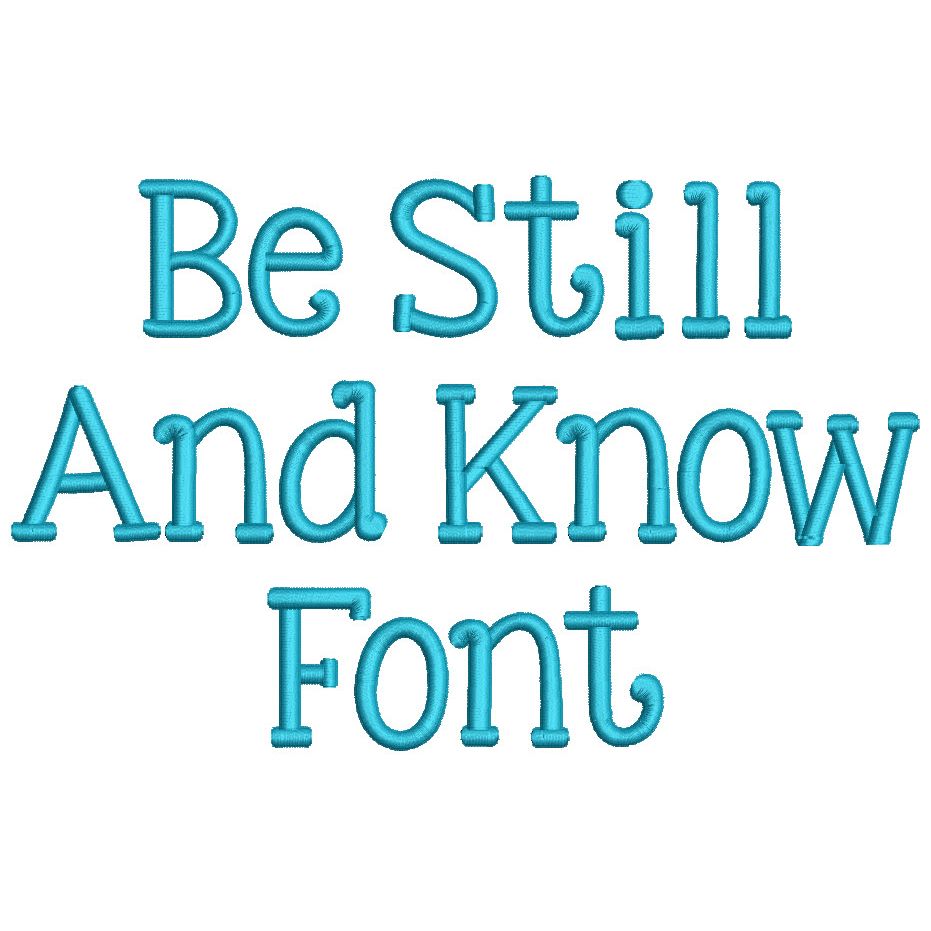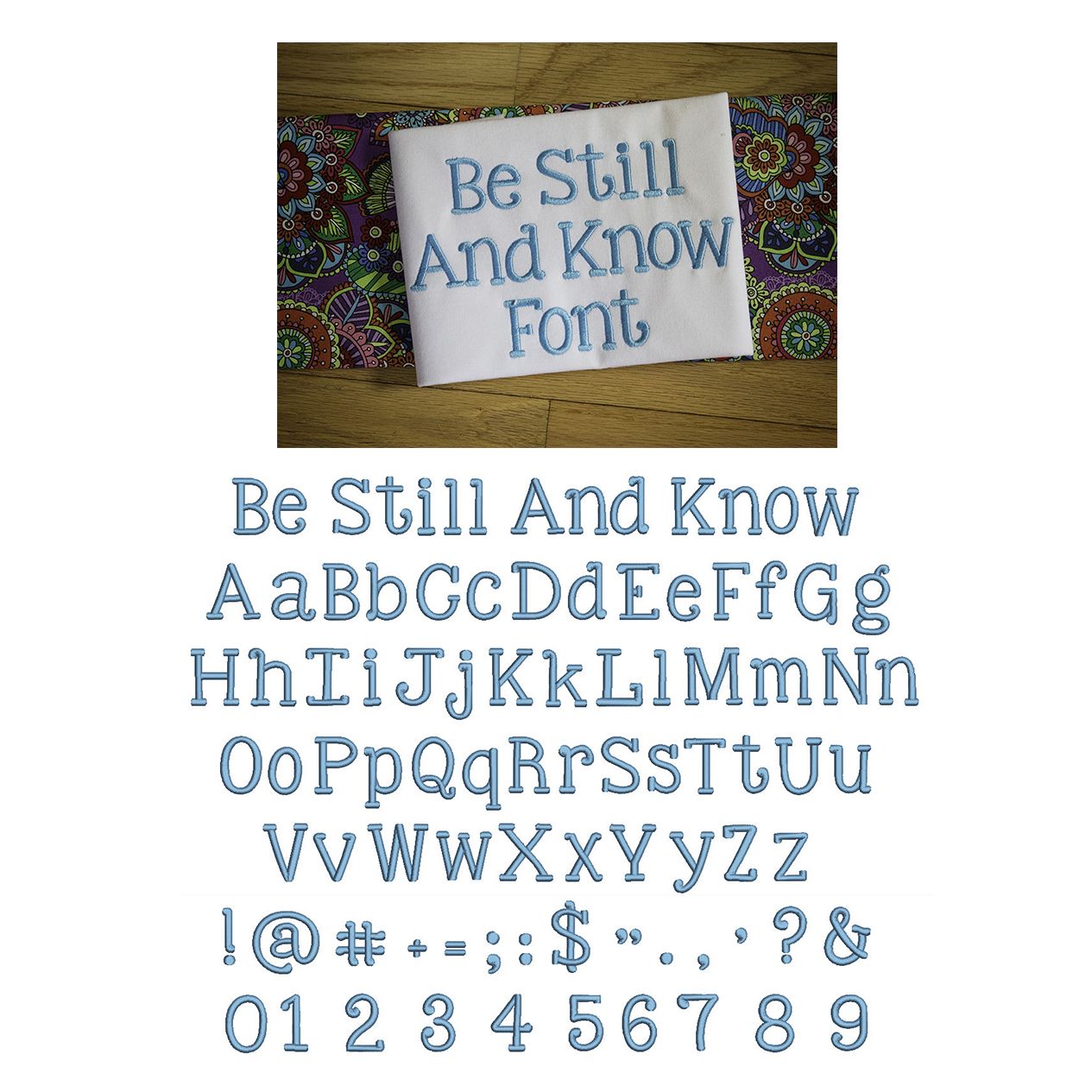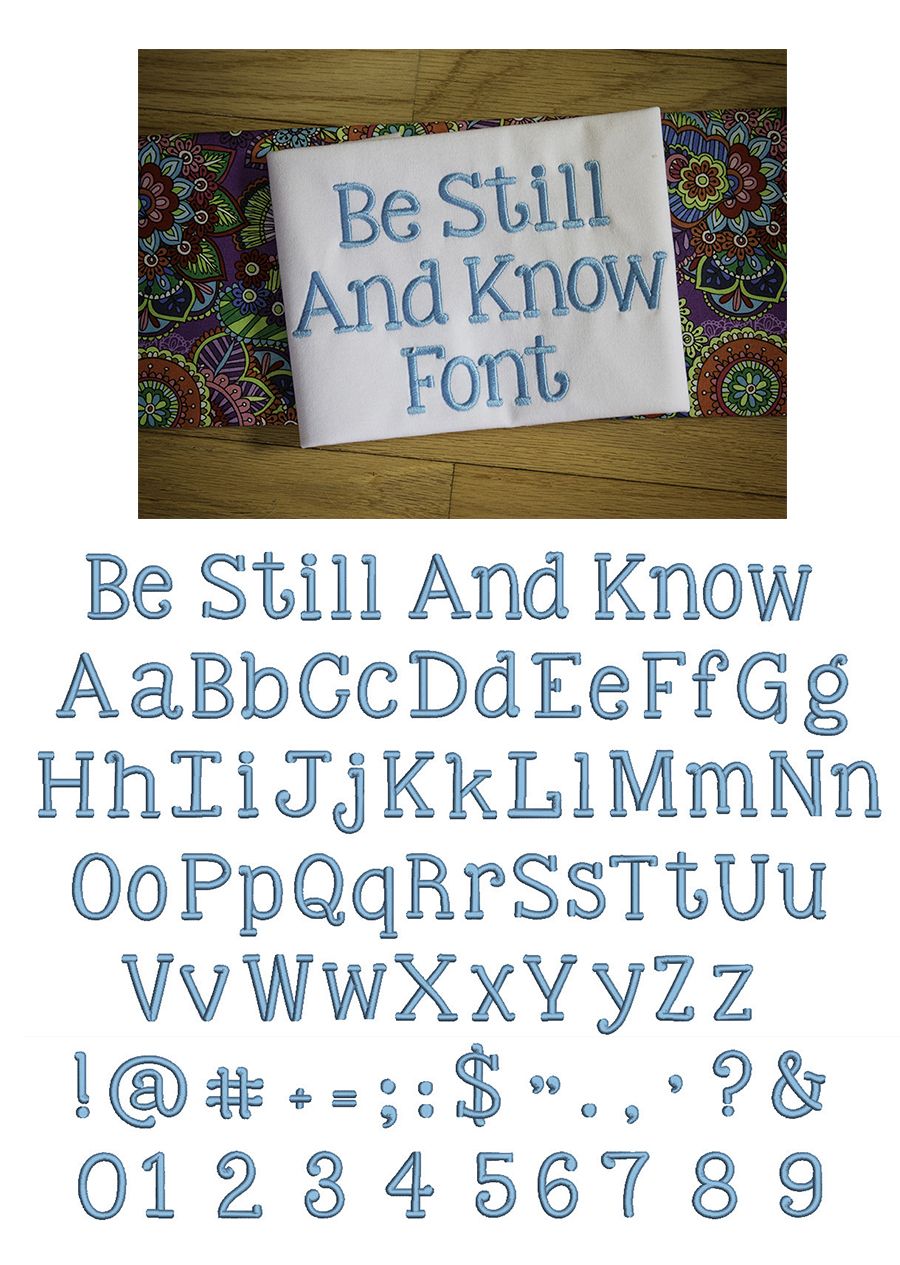
Be Still and Know Satin Stitch Embroidery Font
A nice simple, chunky serif font!  All of our font alphabets are 100% manually digitized to bring you maximum stitch quality.